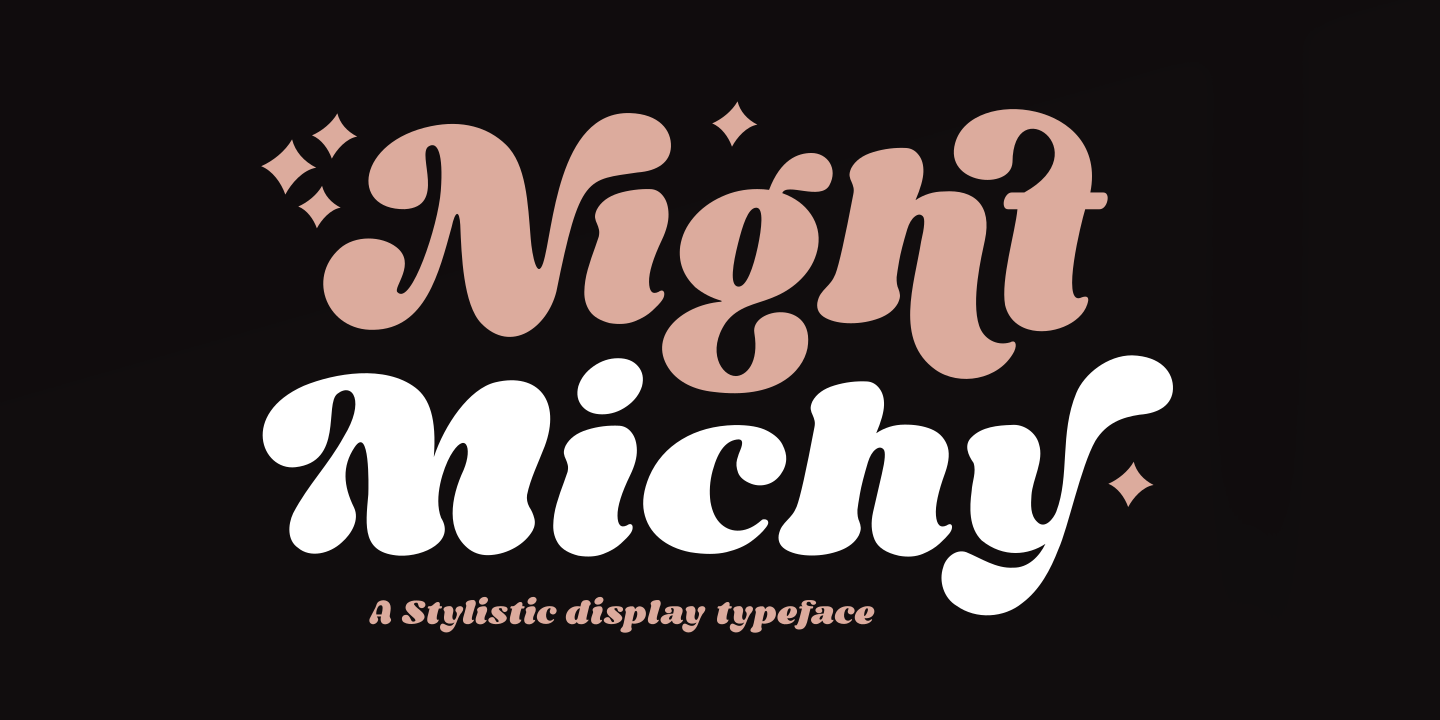
Night Michy Font is perfect for nightclub branding, evening event promotions, midnight fashion shows, late-night restaurant marketing, nocturnal lifestyle brands, urban nightlife campaigns, moonlight photography studios, and sophisticated after-dark entertainment venues.
This font is exciting because it embodies the mysterious allure of nighttime with sophisticated darkness and urban elegance. Night Michy Font features sleek letterforms with nocturnal sophistication that capture the essence of city lights and midnight glamour, making it ideal for projects that require evening appeal and contemporary nightlife character.
The Night Michy Font family includes regular, light, bold, and shadow variants, along with nocturnal alternates and midnight ligatures that enhance its nighttime character. Each weight maintains the font's sophisticated aesthetic while providing different levels of evening expression for various nightlife and urban design applications.
Whether you're developing authentic nightlife brands, creating compelling event materials, or designing sophisticated after-dark campaigns, Night Michy Font Free Download delivers exceptional mystery and nocturnal appeal. Its distinctive nighttime style makes it an excellent choice for designers seeking to add genuine urban sophistication and midnight elegance to their projects. The font's versatility extends from nightclub signage to evening fashion branding, ensuring consistent performance across all nocturnal applications. With its carefully crafted letterforms and midnight proportions, this typeface provides professional results that captivate night owls and establish powerful evening presence with its unmistakable nocturnal character and sophisticated urban nightlife elegance.